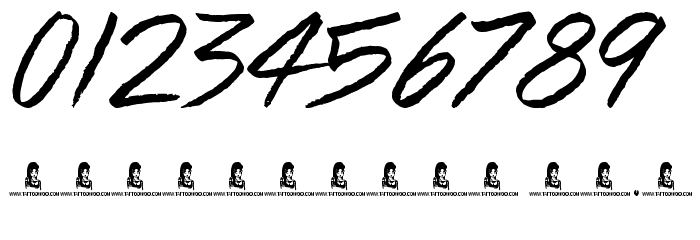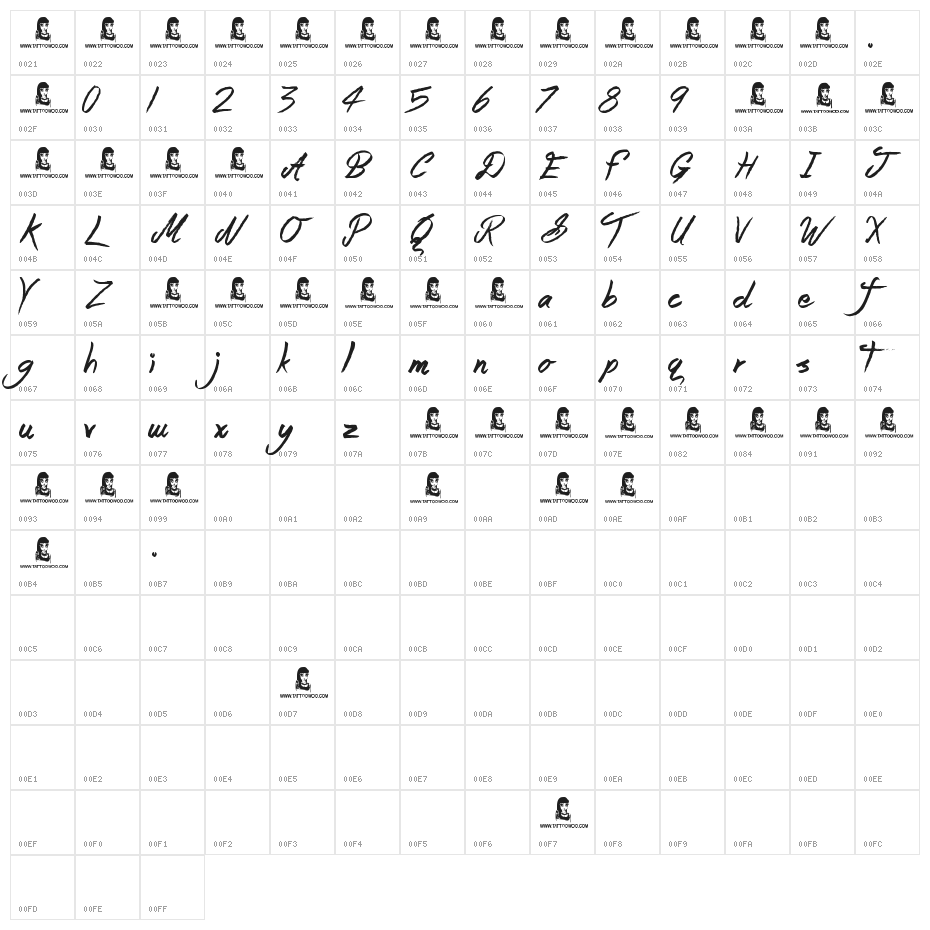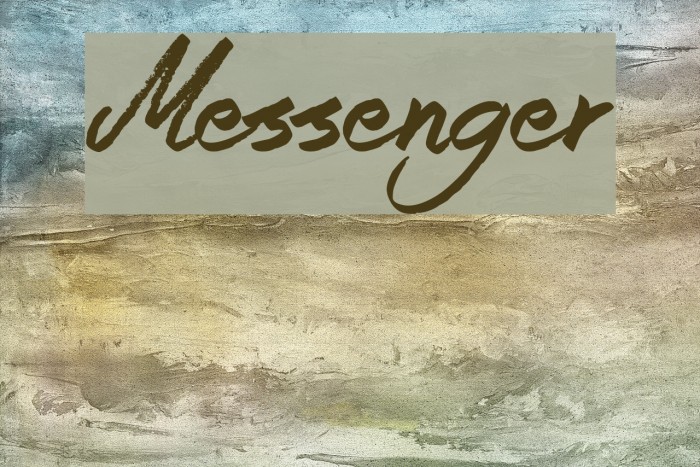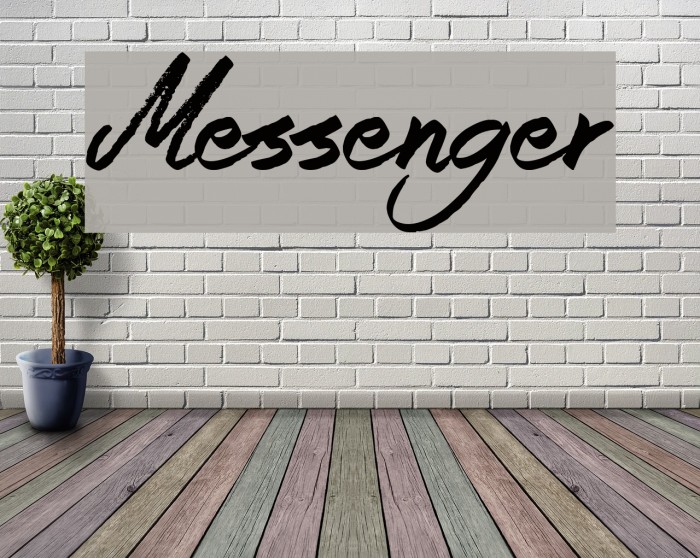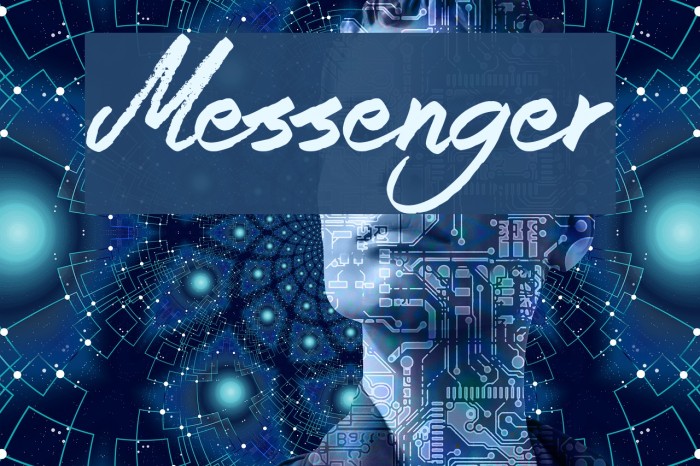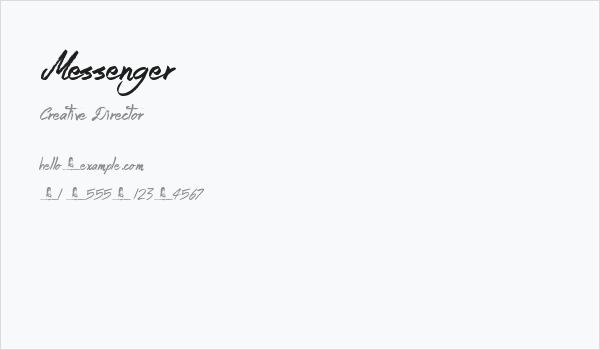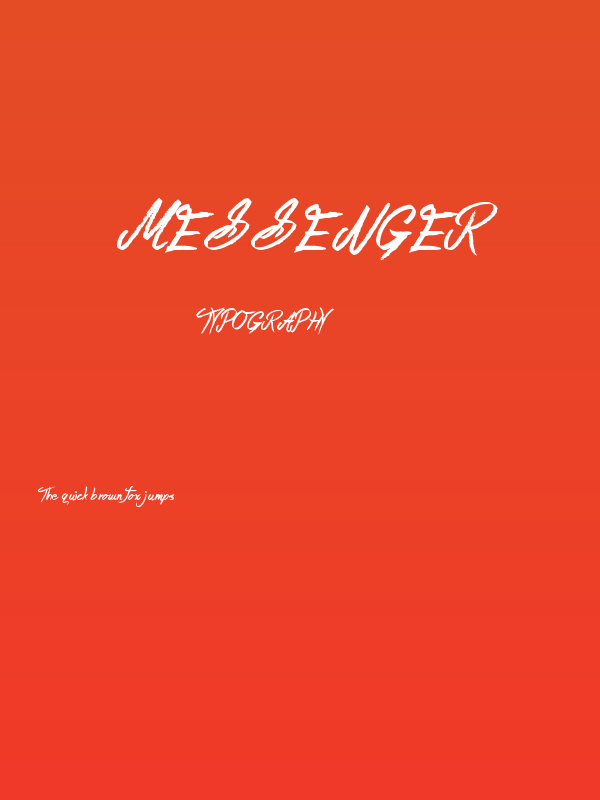
Messenger Font
Messenger Description
This font features a dynamic and expressive handwritten style, characterized by its bold and fluid strokes. The uppercase letters exhibit a sense of movement and energy, with varying stroke widths that add a lively and artistic flair. The lowercase letters maintain this energetic style, with some letters featuring unique loops and curves that enhance the handwritten aesthetic. The numerals are consistent with the overall style, offering a cohesive look. This font's distinctive and artistic appearance makes it suitable for creative and informal applications.